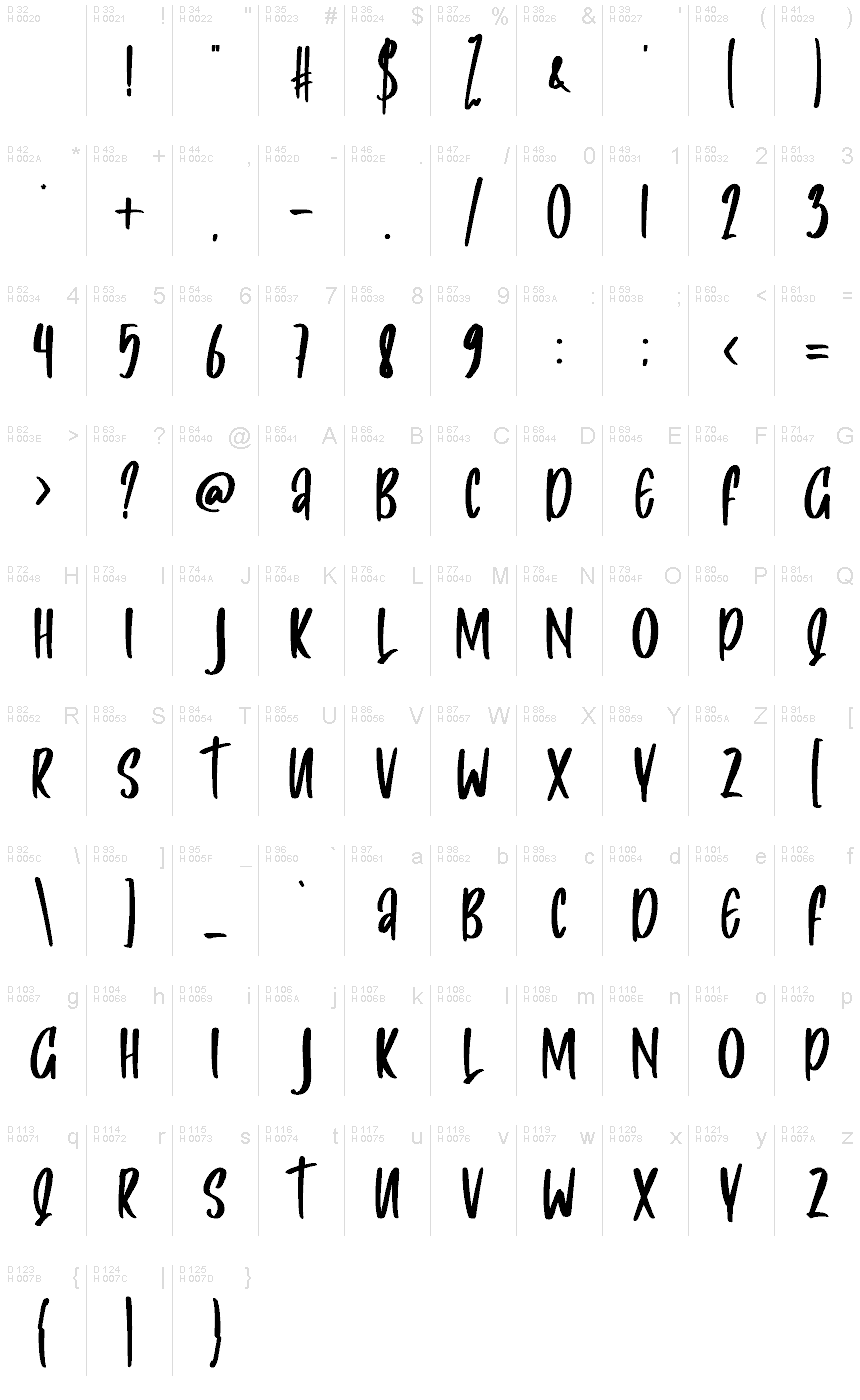
Caslya
Caslya font by Skiiller Studio is a free handwritten font with an expressive energy and playful character. This contemporary typeface has casual and youthful undertones that make its modern flair distinguishable. It is condensed in width, and its strong design communicates an energetic vibe. Using this authentic visual appeal can upgrade any typographic project you are working on.
Applications include brochures, posters, business cards, product packaging, advertising projects, brand identity designs, signage design creation as well as social media covers. Titles of magazines or journals can benefit immensely from the atypical look of Caslya font’s characters with freehand-style letters. In addition to branding purposes logos and label-related projects will shine extremely bright!